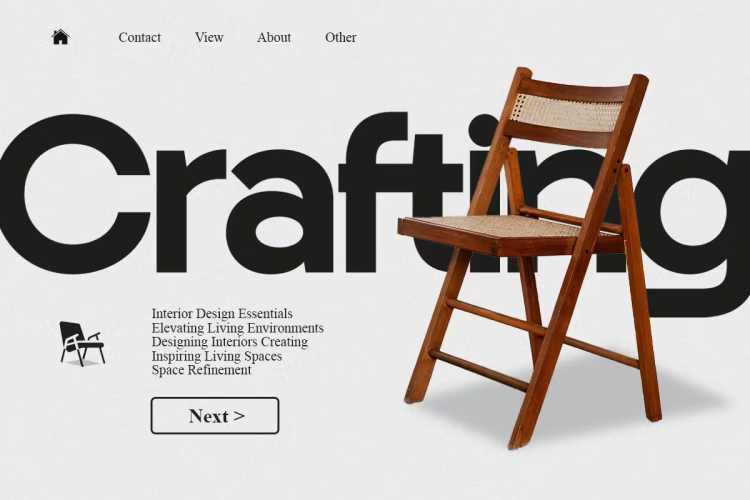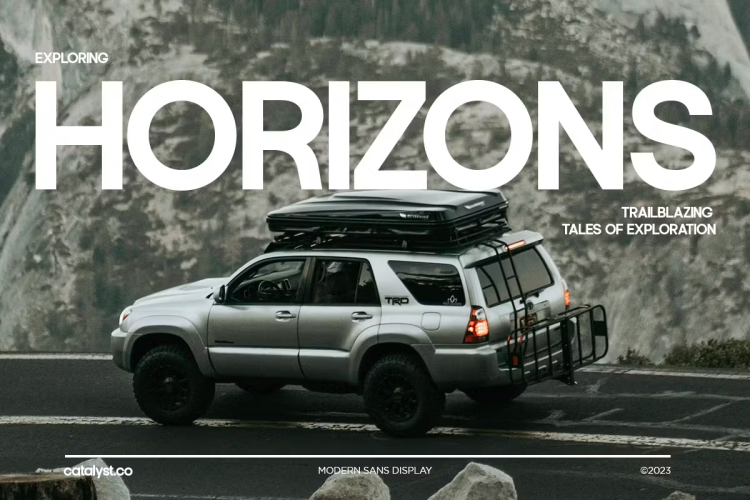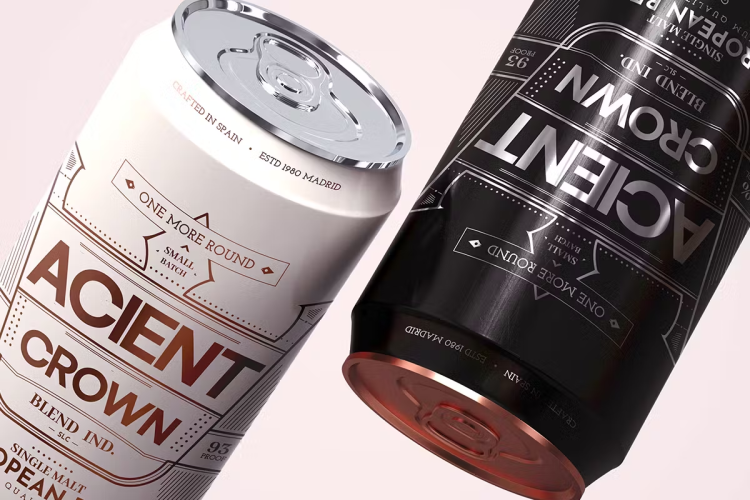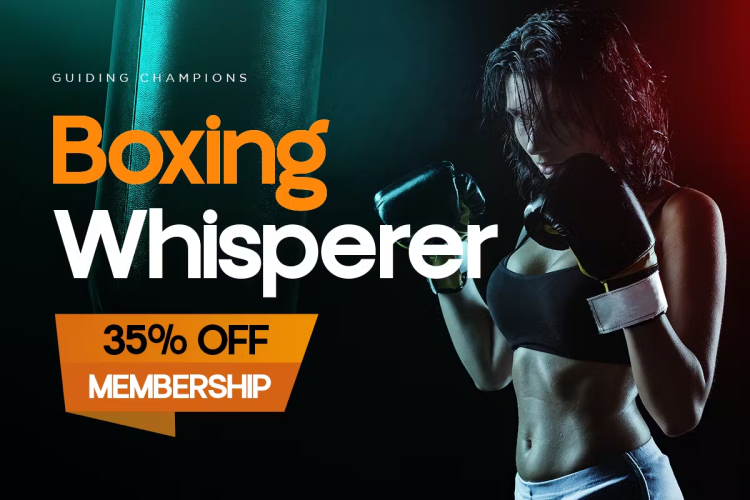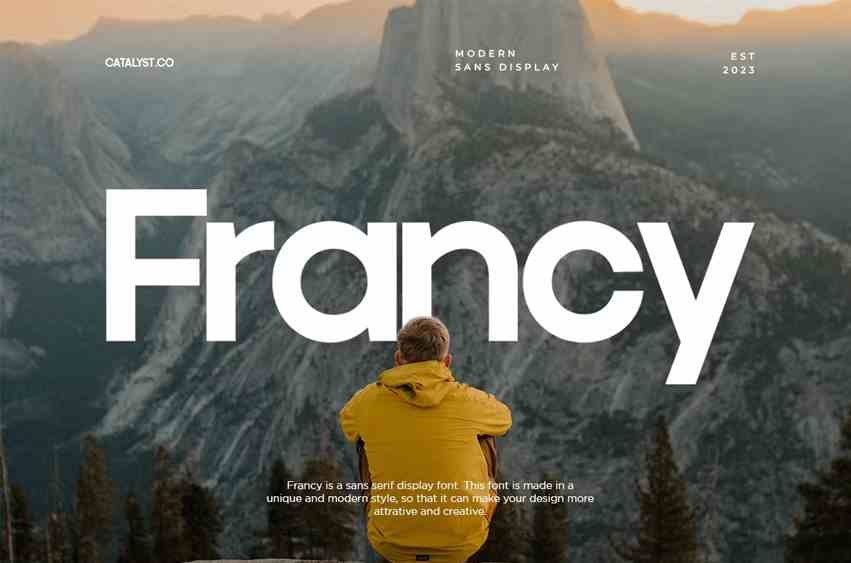
Francy Font
Francy is an excellent font for manufacturing quote text, logotype, header magazine, and many more. A masterpiece for your daily design projects.
Where Francy Font works best
Francy Font stays legible at small sizes, which makes it a strong choice for navigation, buttons and dashboards in web design and app interfaces.
Clean sans serifs like Francy Font are the default language of SaaS, fintech and product branding.
What is Francy Font good for?
Francy Font is a Sans Serif Fonts typeface tagged Download, Editorial, Free, Sans Serif. It works well for headlines, logos, posters, social media graphics and branding projects that need a distinctive sans serif fonts look.